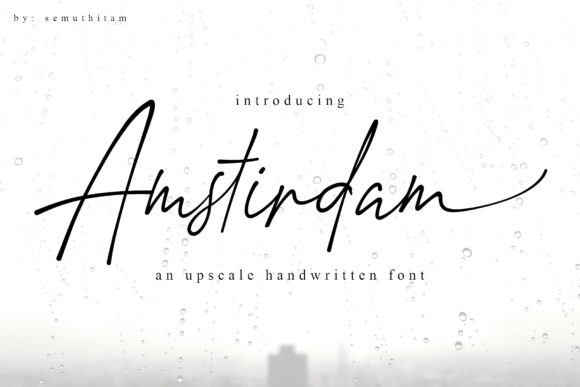
Introducing Amstirdam Font, the epitome of sophistication and charm in the world of typography. This free-flowing script, with its captivating bouncy baseline, exudes authenticity and panache, ensuring your messages shine with confidence and allure.
Crafted by the talented semuthitam, Amstirdam Font is a true masterpiece, a symphony of curves and strokes that dance harmoniously, creating a visual symphony that captivates hearts and minds. Its unique style adds a touch of elegance and playfulness, elevating your designs to new heights.
With Amstirdam Font, you hold the key to unlock a world of creative possibilities. Whether you're a seasoned designer or just starting your typographical journey, this script will ignite your imagination and fuel your passion for creating stunning visuals.
Immerse yourself in the world of Amstirdam Font and discover a treasure trove of captivating features:
* Bouncy Baseline: The dynamic baseline of Amstirdam Font adds a touch of whimsy and vitality to your designs, making them stand out from the crowd.
* Authentic Charm: This script radiates authenticity, capturing the essence of handwritten notes, adding a personal touch to your projects.
* Confidence and Charm: Convey your message with confidence and charm, using Amstirdam Font's captivating style to leave a lasting impression.
* Endless Creativity: Unleash your creativity and explore a vast array of design possibilities, from elegant invitations to eye-catching logos.
* Free-Flowing Strokes: The free-flowing strokes of Amstirdam Font create a sense of fluidity and movement, adding a touch of magic to your designs.
Amstirdam Font is more than just a font; it's an artistic expression, a reflection of your unique style and vision. Whether you're crafting stunning logos, captivating social media posts, or heartfelt invitations, Amstirdam Font will be your trusted companion, elevating your designs to new heights of elegance and sophistication.
So, embark on this typographical adventure with Amstirdam Font, and let your creativity soar. Discover the boundless possibilities that await you as you explore the world of this enchanting script.
Transform your designs, captivate your audience, and make a statement with Amstirdam Font – the key to unlocking the door to typographical excellence.